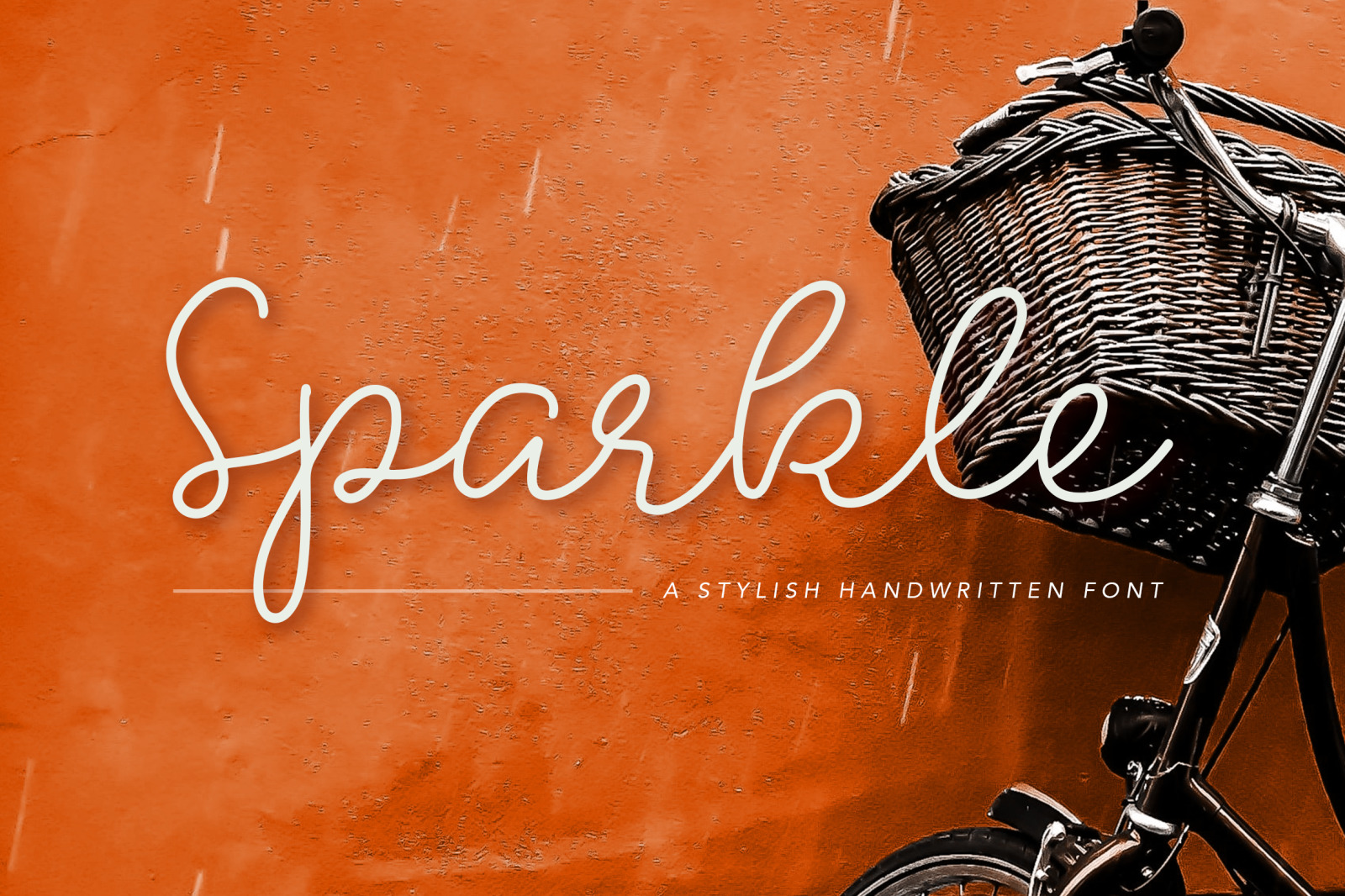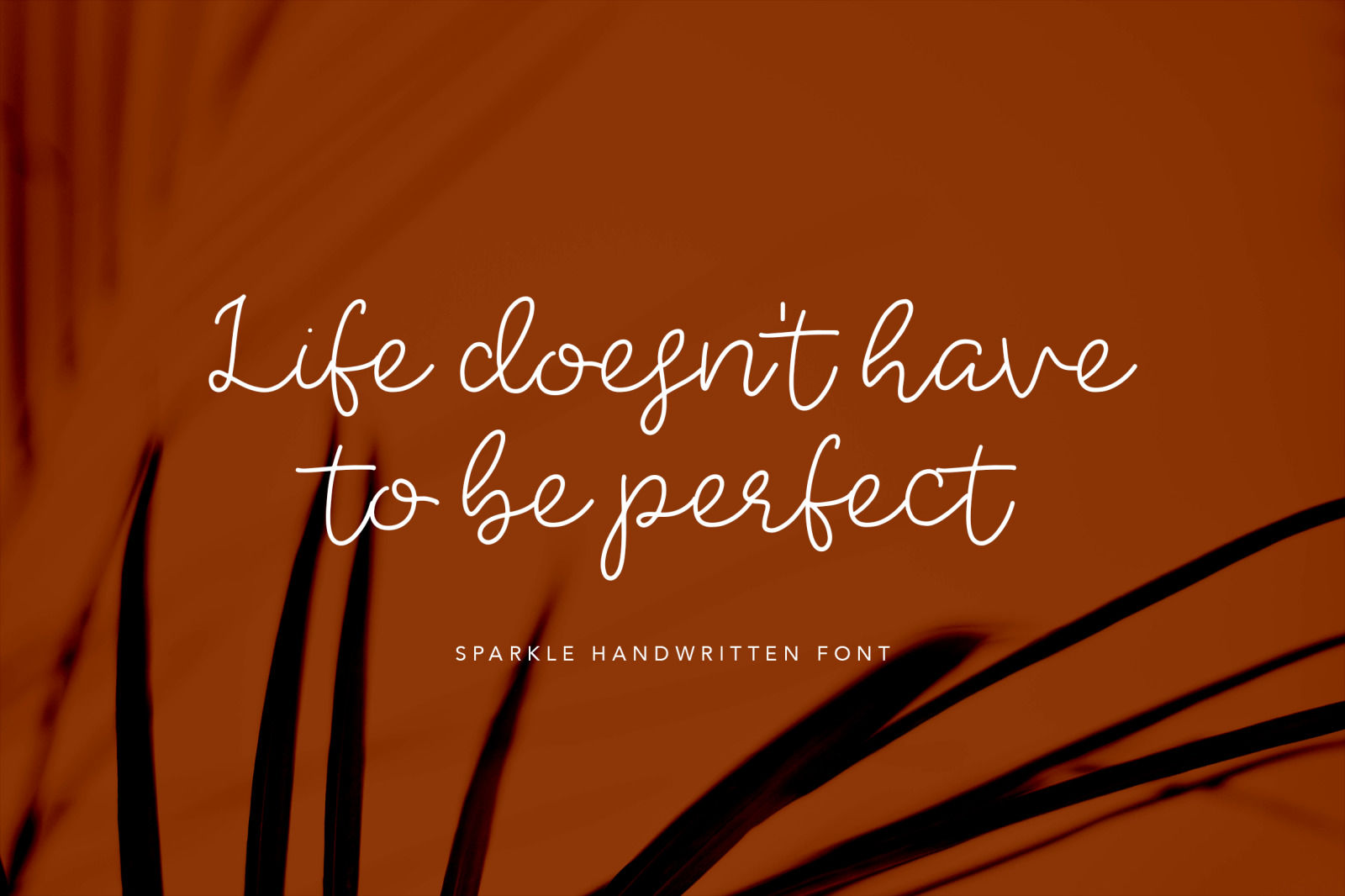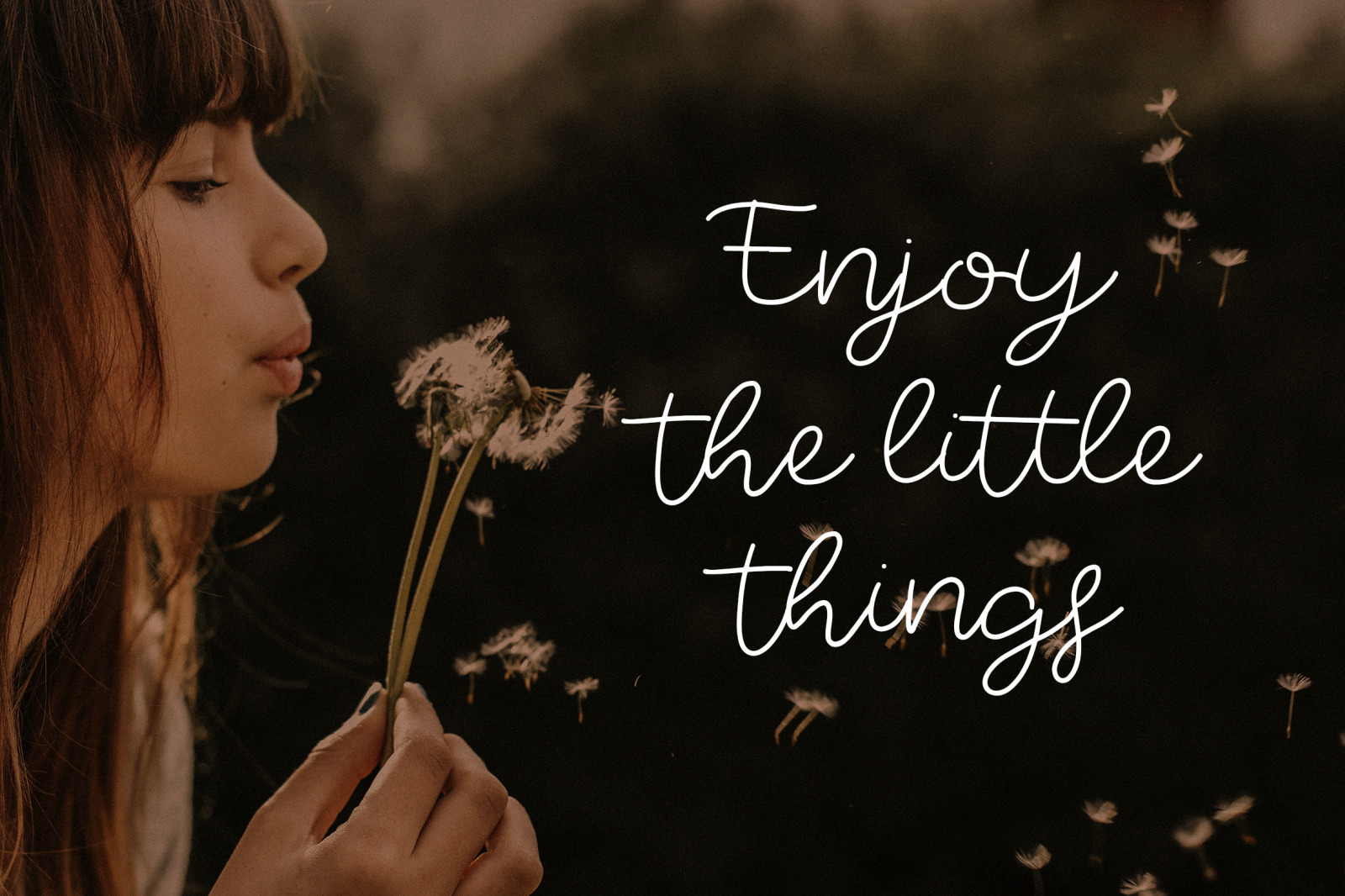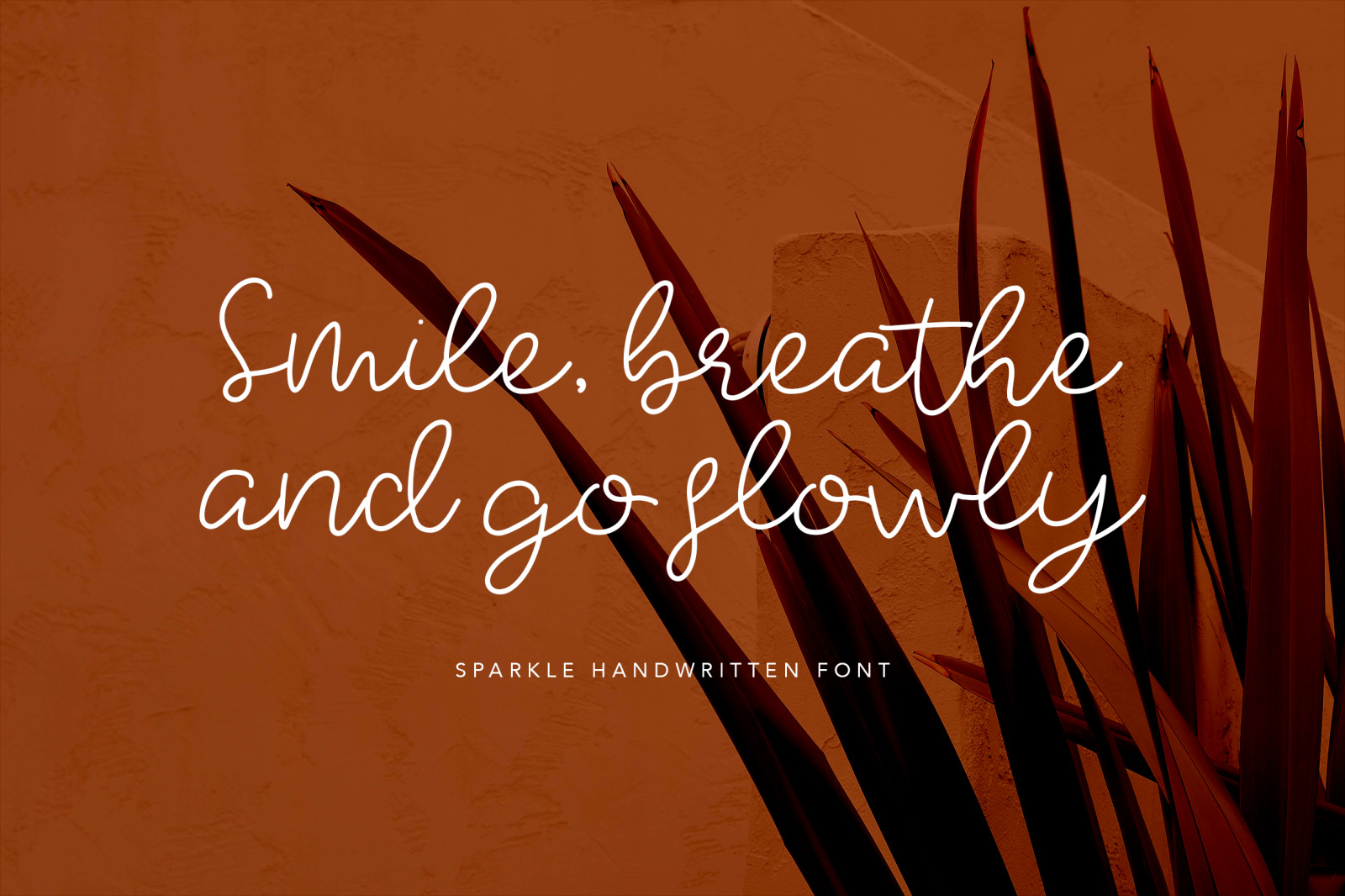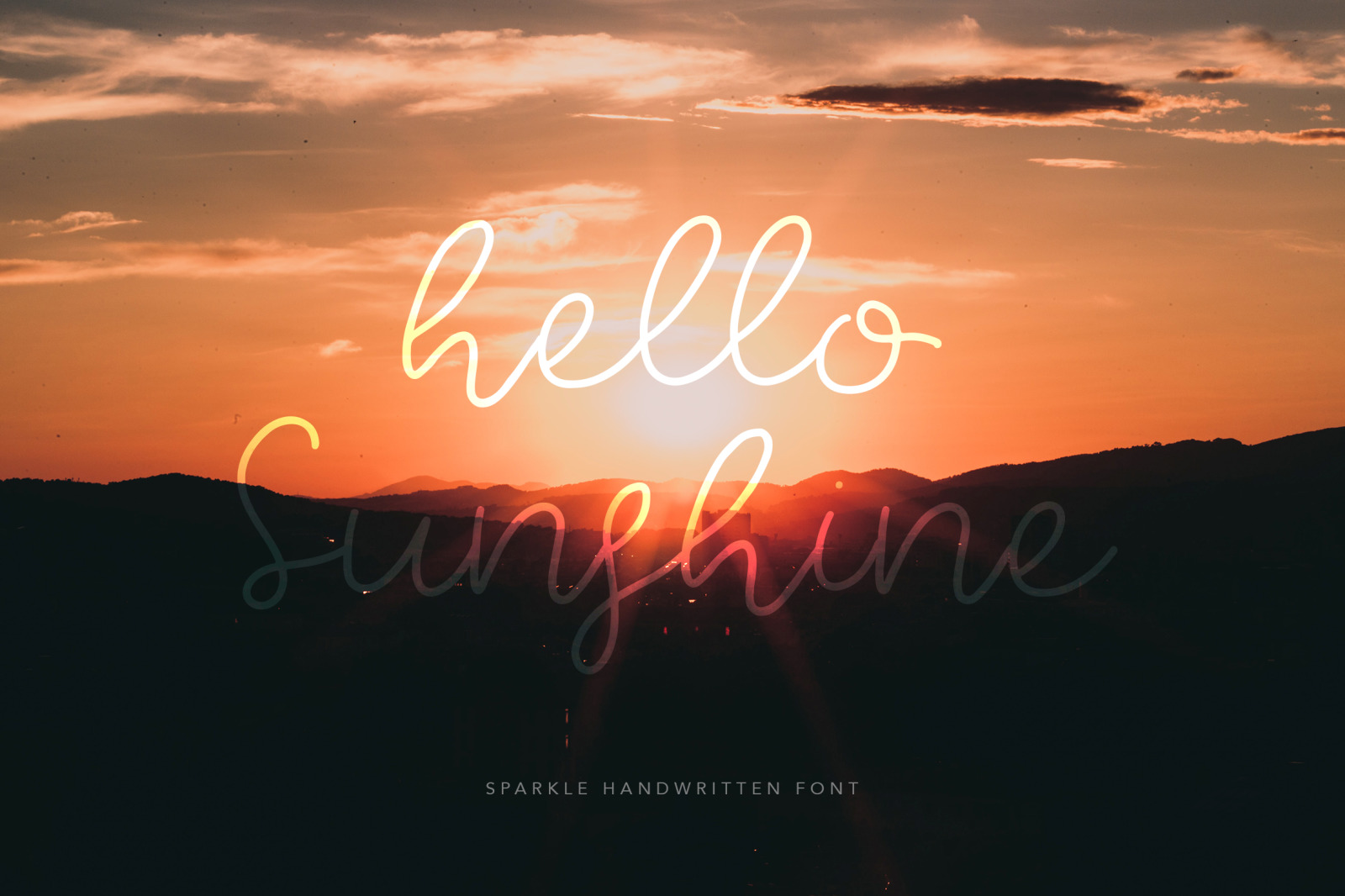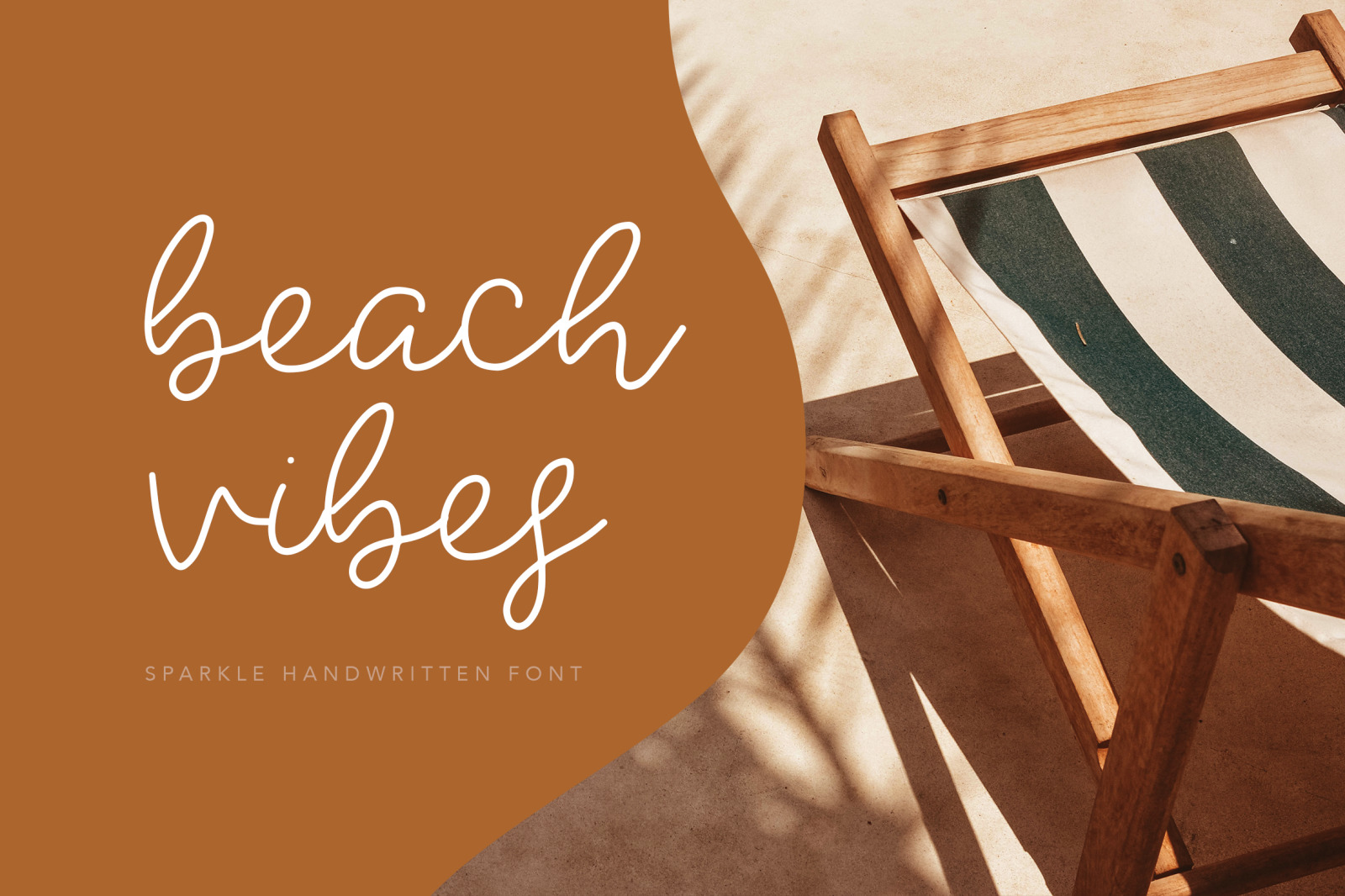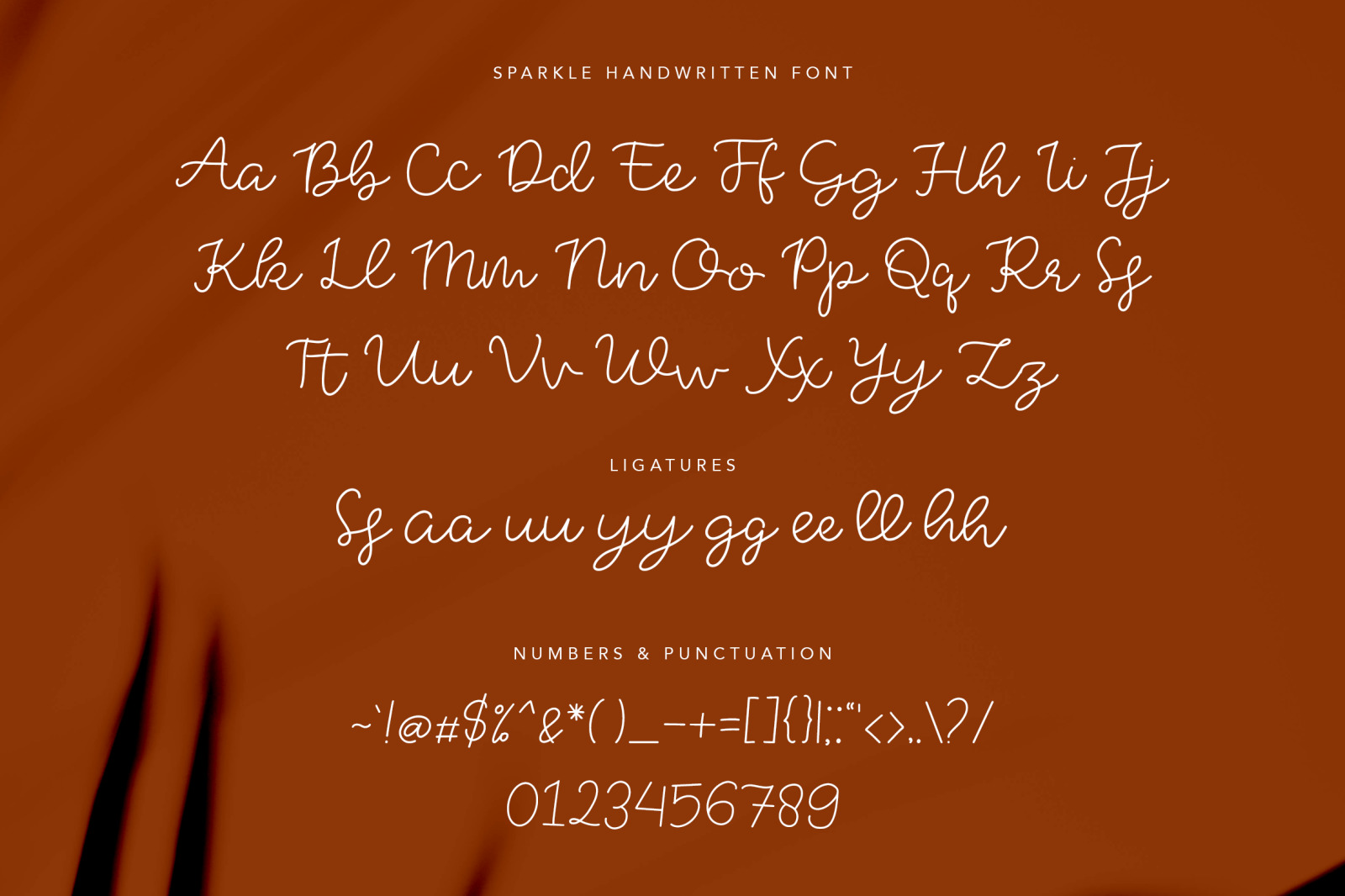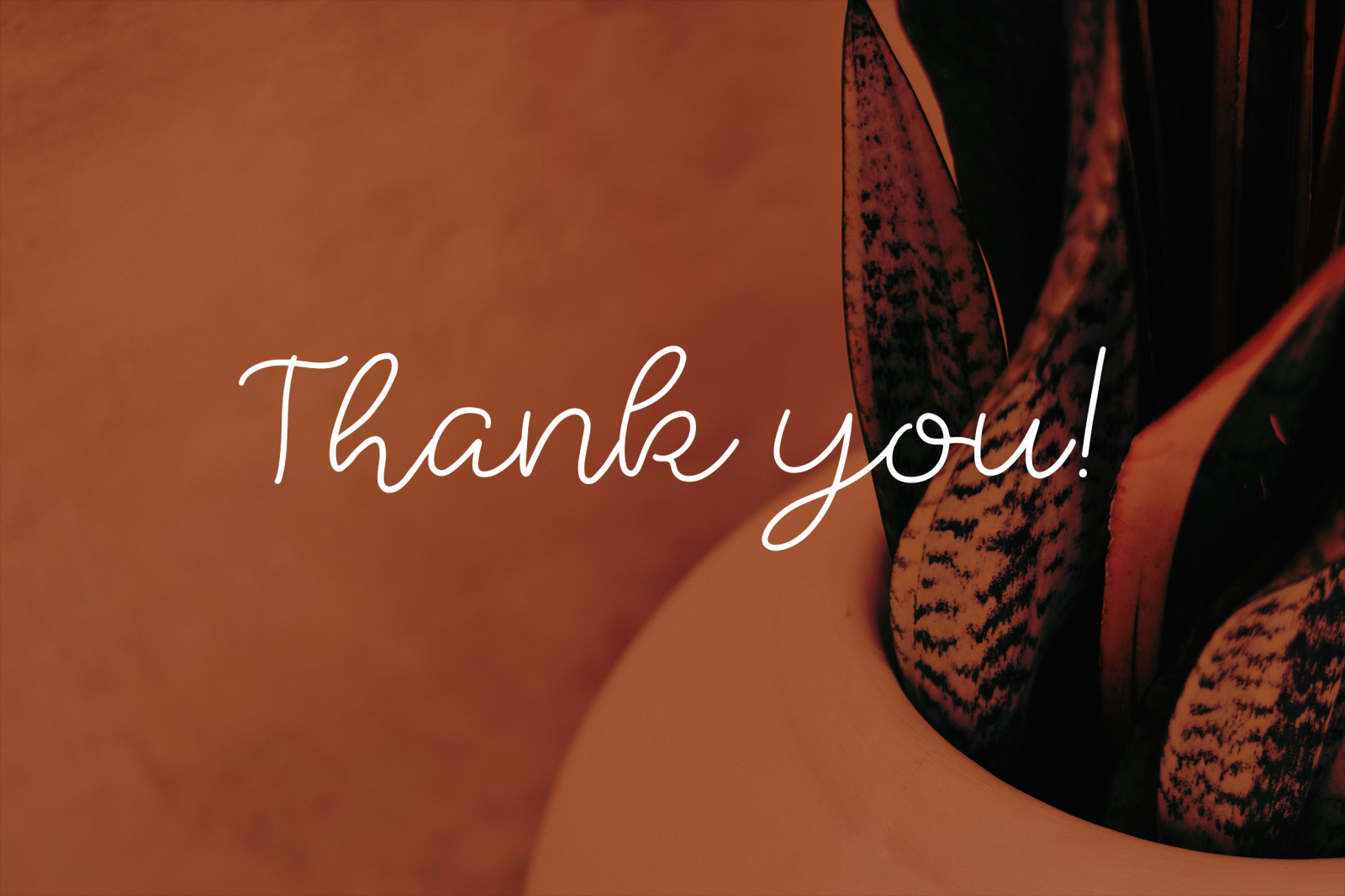
Sparkle Stylish Handwritten Font
Introducing our new font. Sparkle Stylish Handwritten Font !!!
Sparkle is a stylish handwritten font designed with an incredibly minimalist feel. It features smooth lines, gorgeous glyphs, and stunning styles. Sparkle would perfect for a quote font, wedding invitation, social media posts, advertisements, photography, fashion, boutique, and any beauty or feminine projects. It makes with a high level of legibility. It's also a perfect fit for a beauty-themed - or a stylish text overlay to any background image.
+ Uppercase & Lowercase letters
+ Numbering
+ Punctuation